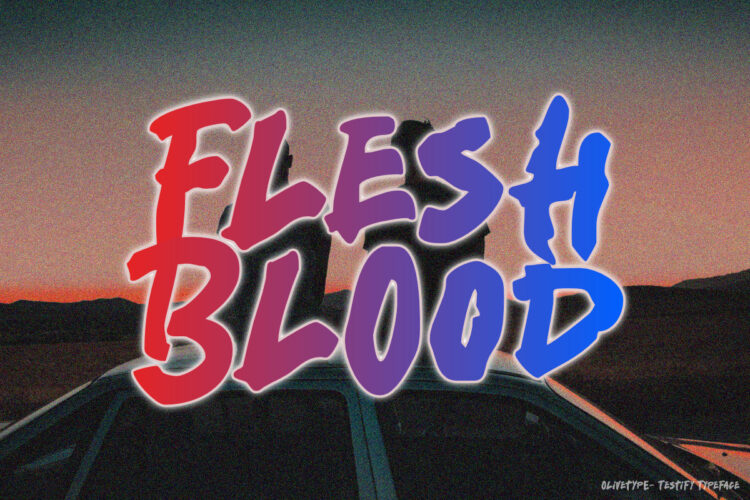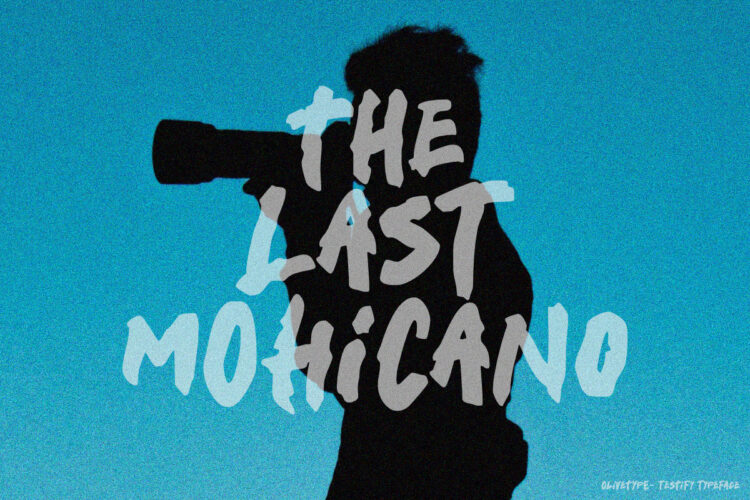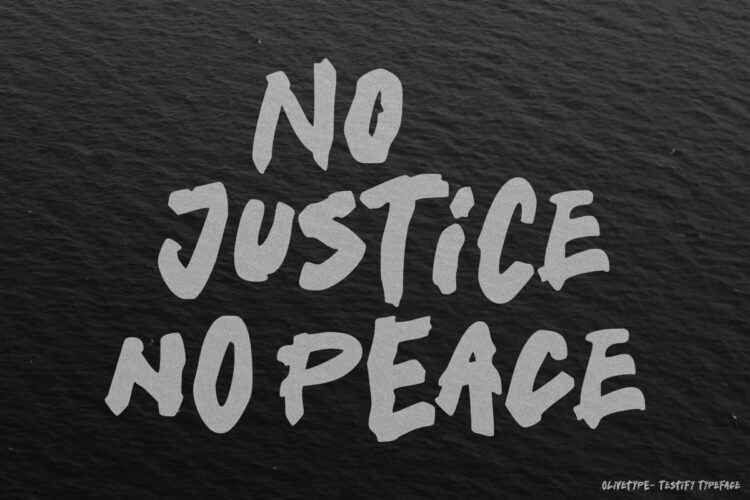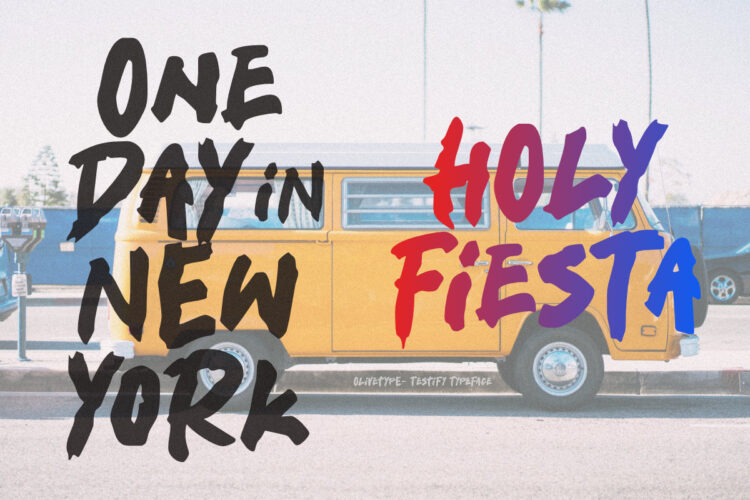
Testify is a cool and fun typeface, carefully handcrafted to become a true favorite. Its old-school charm makes it appear incredibly versatile. Testify will look outstanding in any context, whether it’s being used on busy backgrounds or as a standalone headline!